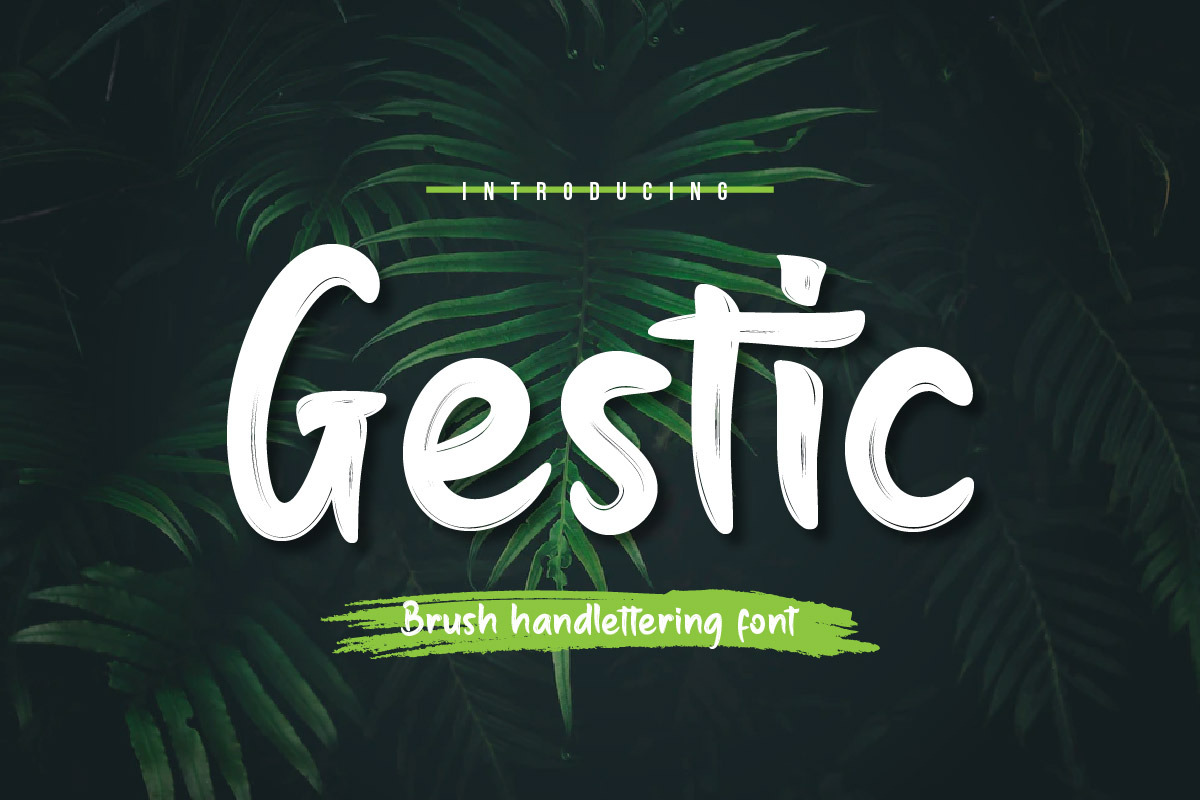
Gestic - Brush Handwritten Font
Gestic is an expressive and spirited handwritten font. With wild hand movements and spontaneous sways, this font reflects life and joy. Perfect for projects wanting to showcase cheerfulness and spontaneity, such as posters, product packaging, or invitation cards seeking a unique and lively appearance.